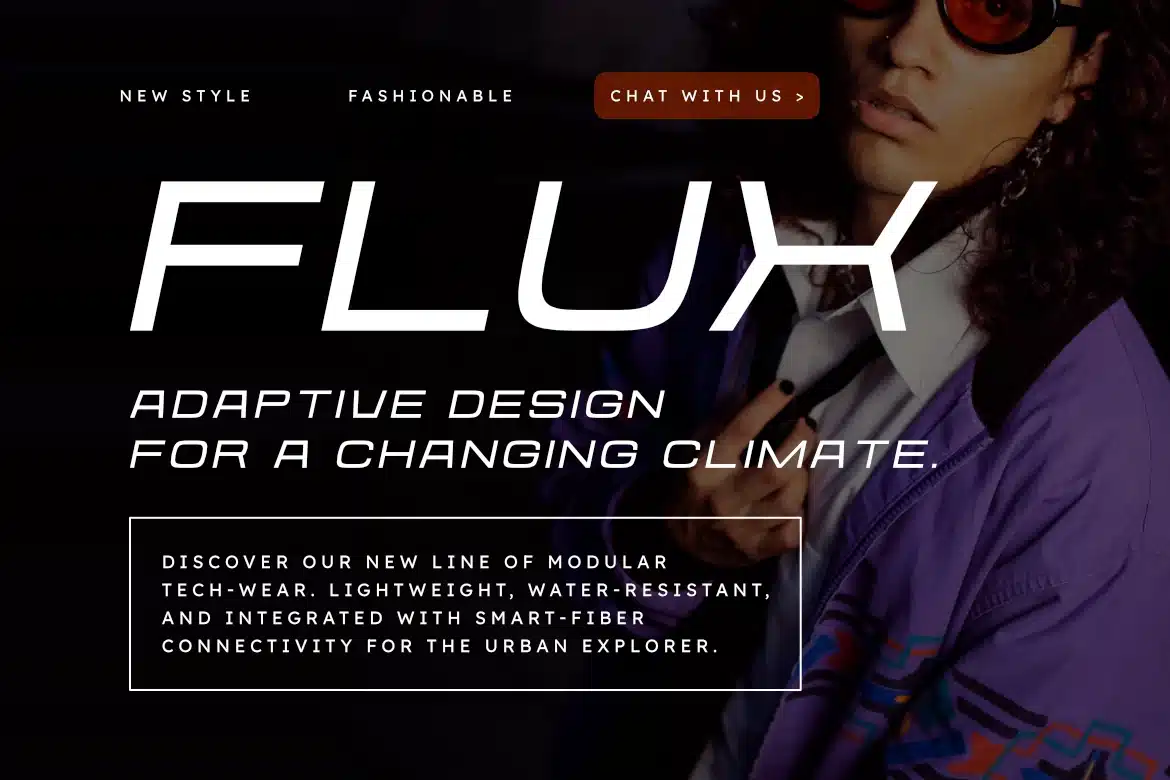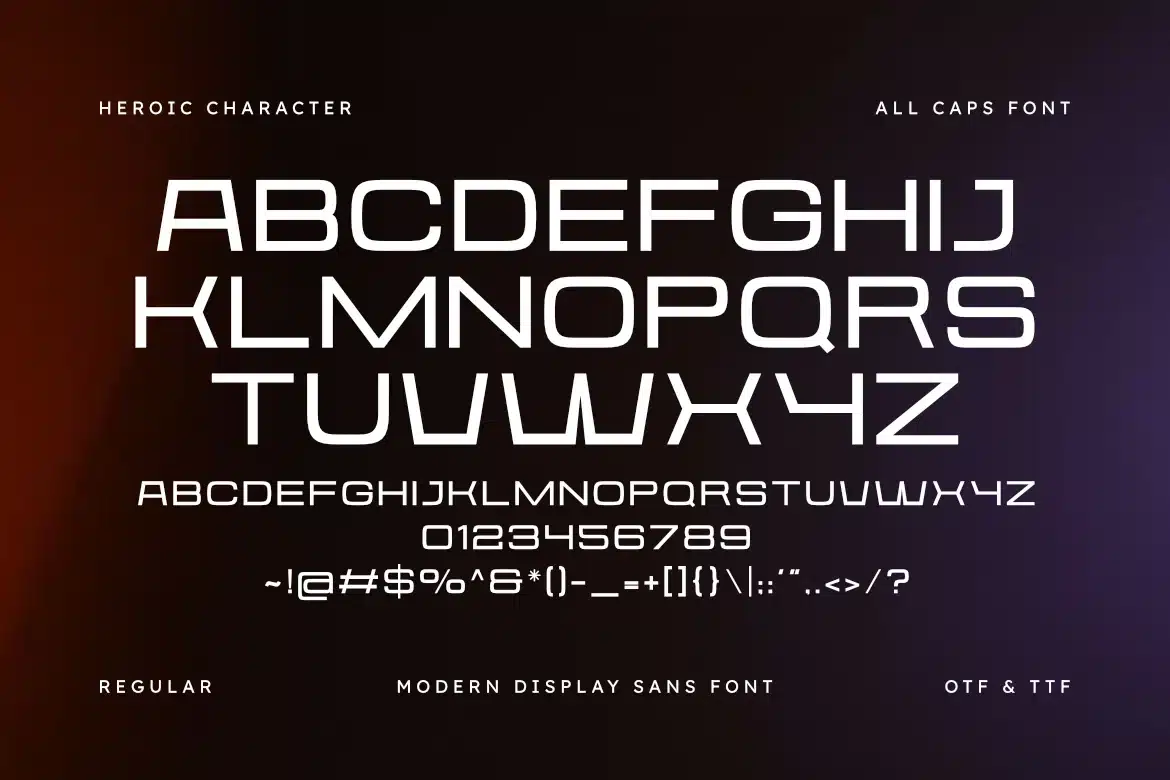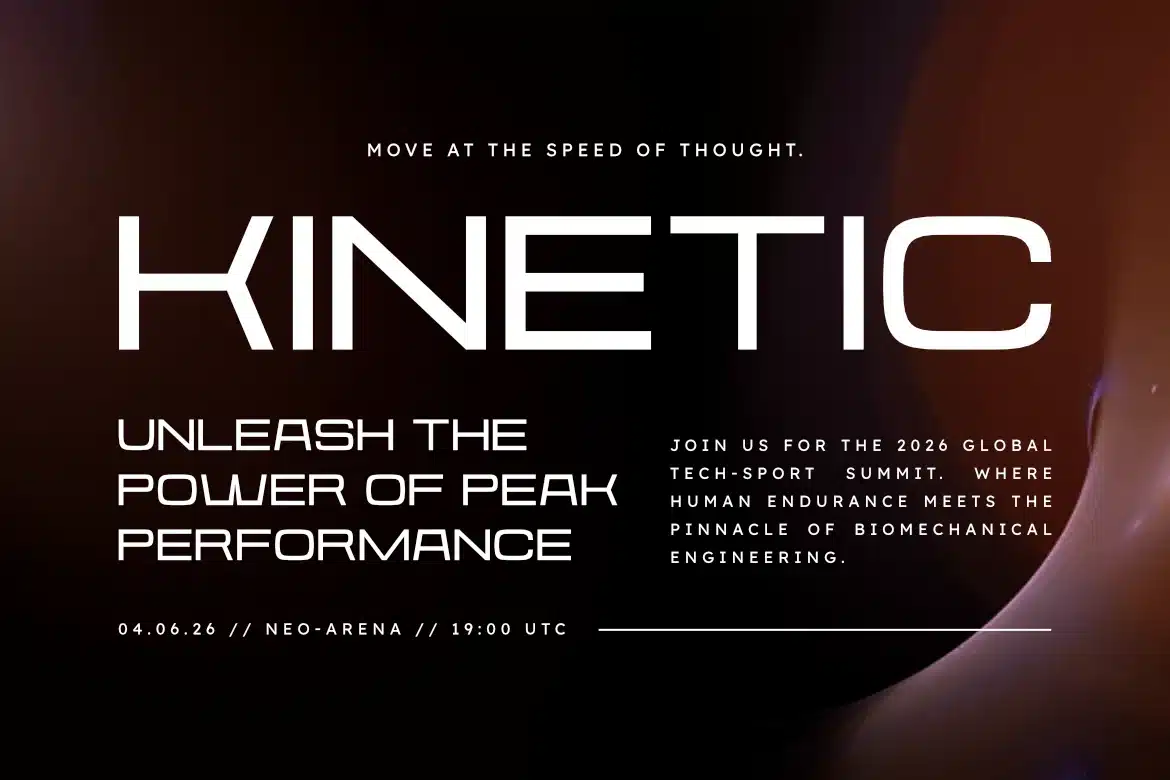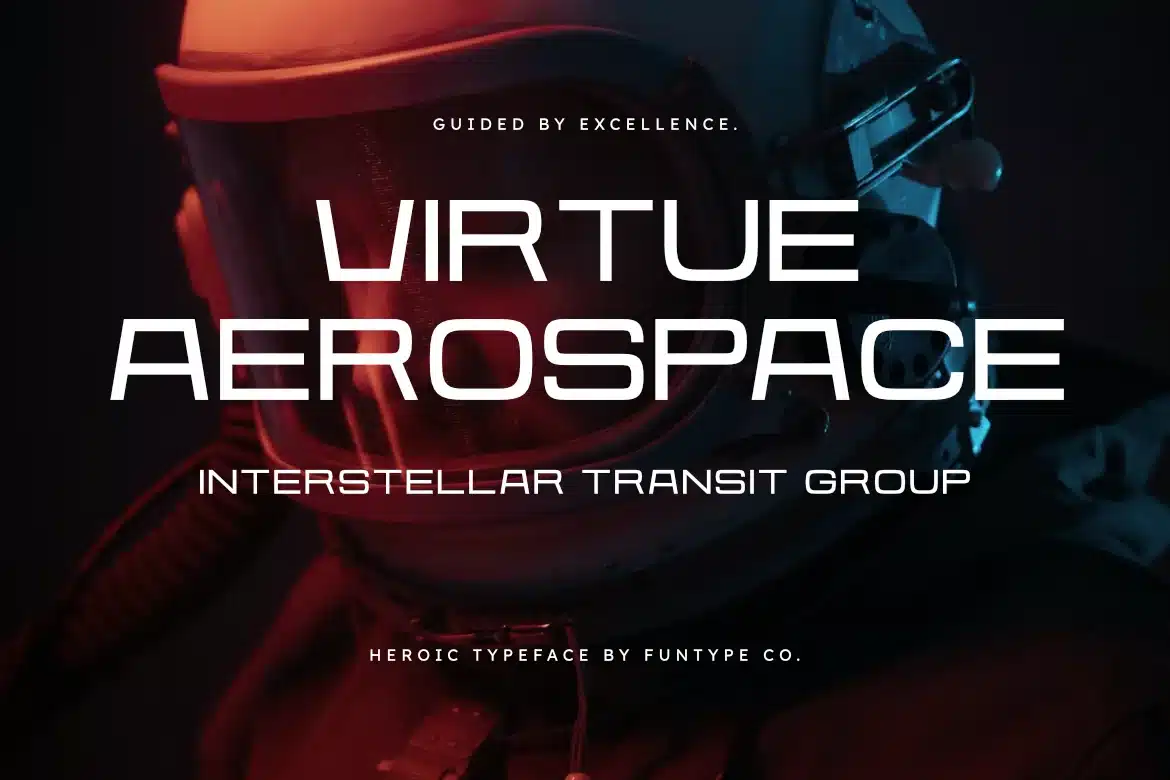
Heroic – Modern Display Sans Font
Heroic is a sophisticated and powerful modern display sans font, thoughtfully designed to capture the essence of contemporary innovation and bold storytelling. With its wide, geometric structure and clean lines, Heroic offers a professional aesthetic that brings a touch of futuristic grace to any creative project.
This font is the ideal choice for designers looking to add a professional yet cutting-edge touch to their work. Whether you are crafting sleek technology branding, a modern cinematic logo, or impactful editorial layouts, Heroic provides a seamless blend of contemporary flair and timeless strength.
Main Features:
- Modern Display Sans Design: Optimized for a bold, high-tech look.
- Refined Geometric Letterforms: Clean and wide for superior digital visibility.
- Professional Aesthetic: Perfect for high-end branding and futuristic titles.
- Versatile Applications: Includes Regular and Italic styles for creative flexibility.
Best Used For:
Technology branding, sci-fi movie posters, automotive logos, modern advertising, e-sports identities, and sophisticated digital interfaces.